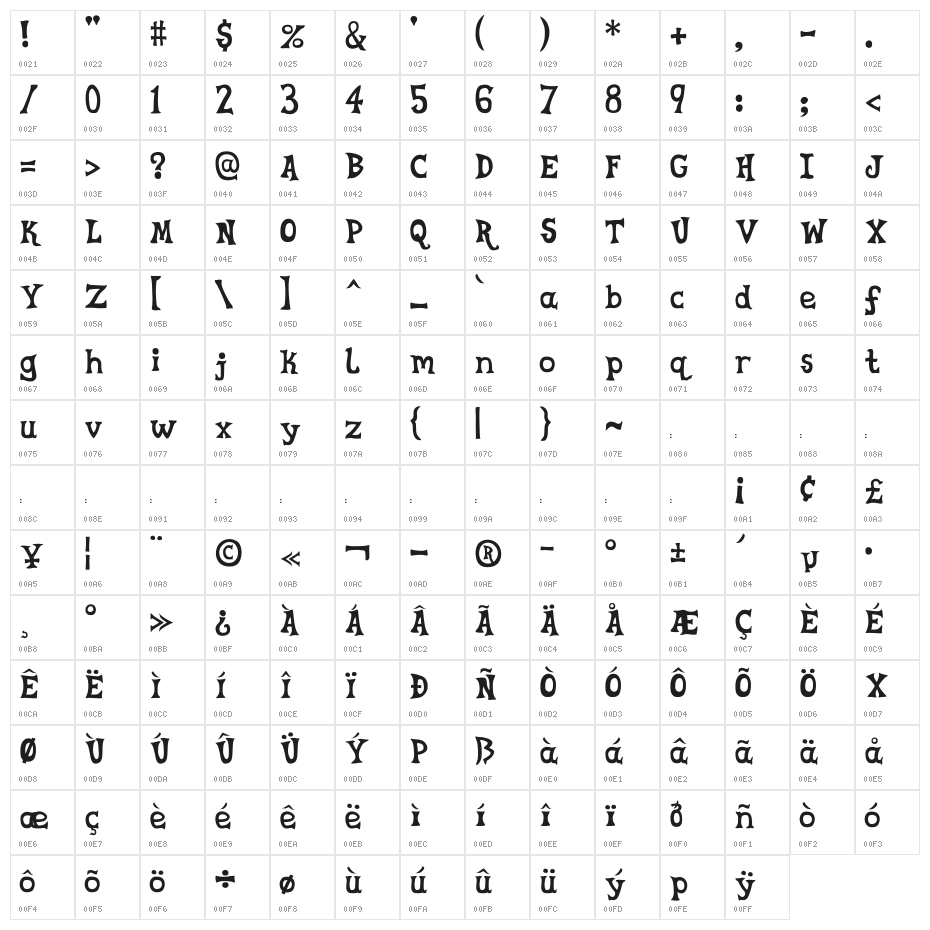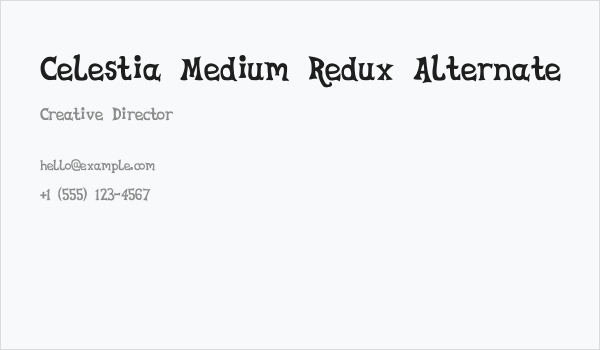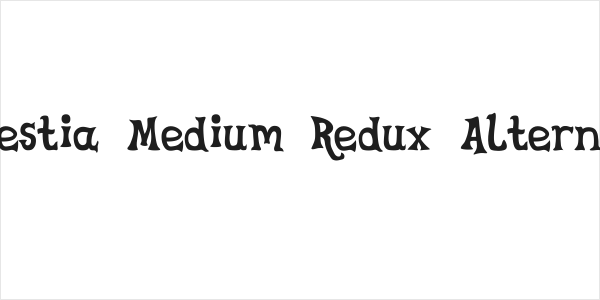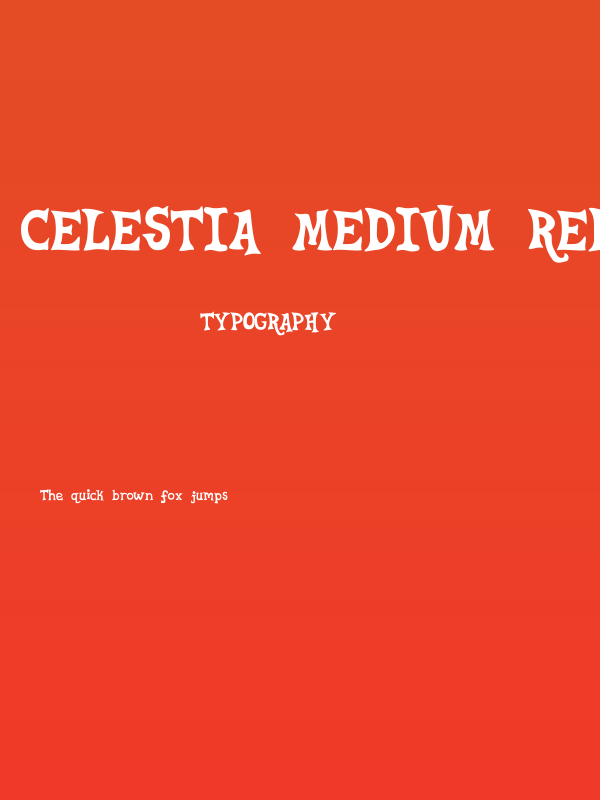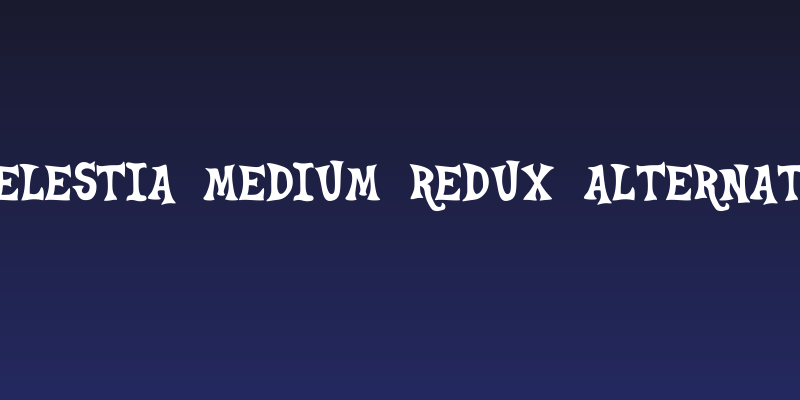
Celestia Medium Redux Alternate Font
Celestia Medium Redux Alternate Description
This font features a whimsical and playful design with a hand-drawn aesthetic. The characters exhibit a unique blend of curves and sharp edges, giving it a dynamic and lively appearance. The uppercase letters are bold and slightly irregular, while the lowercase letters maintain a consistent style with a touch of quirkiness. Numbers and special characters follow the same playful theme, making the font suitable for creative and informal projects. The overall design is reminiscent of a fantasy or storybook style, adding a sense of fun and imagination.
| Proposed Projects | Ideal for children's books, fantasy-themed designs, playful branding, and creative posters. |